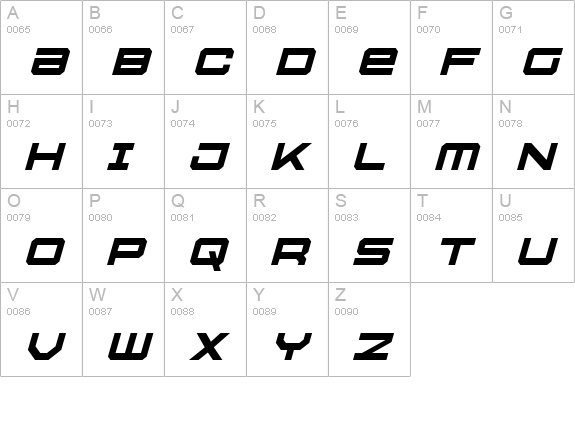
U.S.S. Dallas Italic is a distinctive, italic variant in the U.S.S. typeface family \xE2\x80\x94 well suited to design and typography projects.
The U.S.S. Dallas Italic font is a sleek and modern typeface that exudes sophistication and elegance. Its slanted design adds a touch of flair to any project, making it perfect for use in branding, advertising, and editorial design. The U.S.S. Dallas Italic font is versatile and can be used for a variety of purposes, from headlines to body text. What sets this font apart is its seamless blend of style and readability, making it both visually appealing and easy to read. Whether you're designing a website, creating a poster, or crafting a logo, the U.S.S. Dallas Italic font will elevate your work to the next level. Best of all, the U.S.S. Dallas Italic font is free to download at FontsMarket.com. This means you can access this high-quality typeface without breaking the bank, making it an excellent choice for designers on a budget. Don't miss out on the opportunity to enhance your projects with the U.S.S. Dallas Italic font - download it today and see the difference it can make!